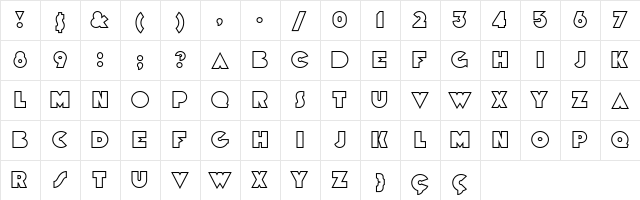
Ciclope Black Black Outline
Design Context for Ciclope Black Typeface
Ciclope Black is built around its visual character rather than neutral utility — its distinctive forms are designed to make an impression at display sizes.
Font Pairing: Pair with a clean neutral sans-serif for body copy to let Ciclope Black's character lead without overwhelming the composition.
Pro Tip: Use Ciclope Black exclusively at display sizes — it was designed to be seen, not read at length. Let a neutral companion handle body copy.